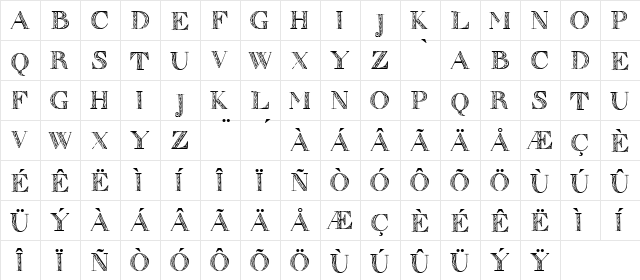
Zierinitialen 1 Regular
Design Context for Zierinitialen 1 Typeface
Zierinitialen 1 is a composed and adaptable typeface that performs quietly and consistently across a wide range of design contexts.